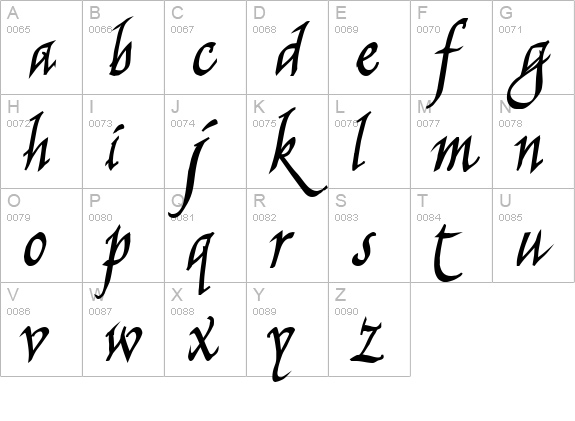
Killgraphy Bold is a strong, high-contrast variant in the Killgraphy typeface family \xE2\x80\x94 well suited to headlines, attention-grabbing titles, and strong calls-to-action.
Killgraphy Bold font is a striking and modern typeface that is perfect for making a bold statement in your designs. With its sharp edges and unique style, this font is sure to grab attention and add a touch of sophistication to any project. What sets Killgraphy Bold apart is not only its eye-catching design, but also the fact that it is available for free download at FontsMarket.com. This means you can easily access this versatile font and use it in a wide range of creative projects without any cost. Whether you're working on a logo, poster, website, or any other design, Killgraphy Bold font will help you achieve a professional and impactful look. Download it today and unleash your creativity with this stunning typeface!